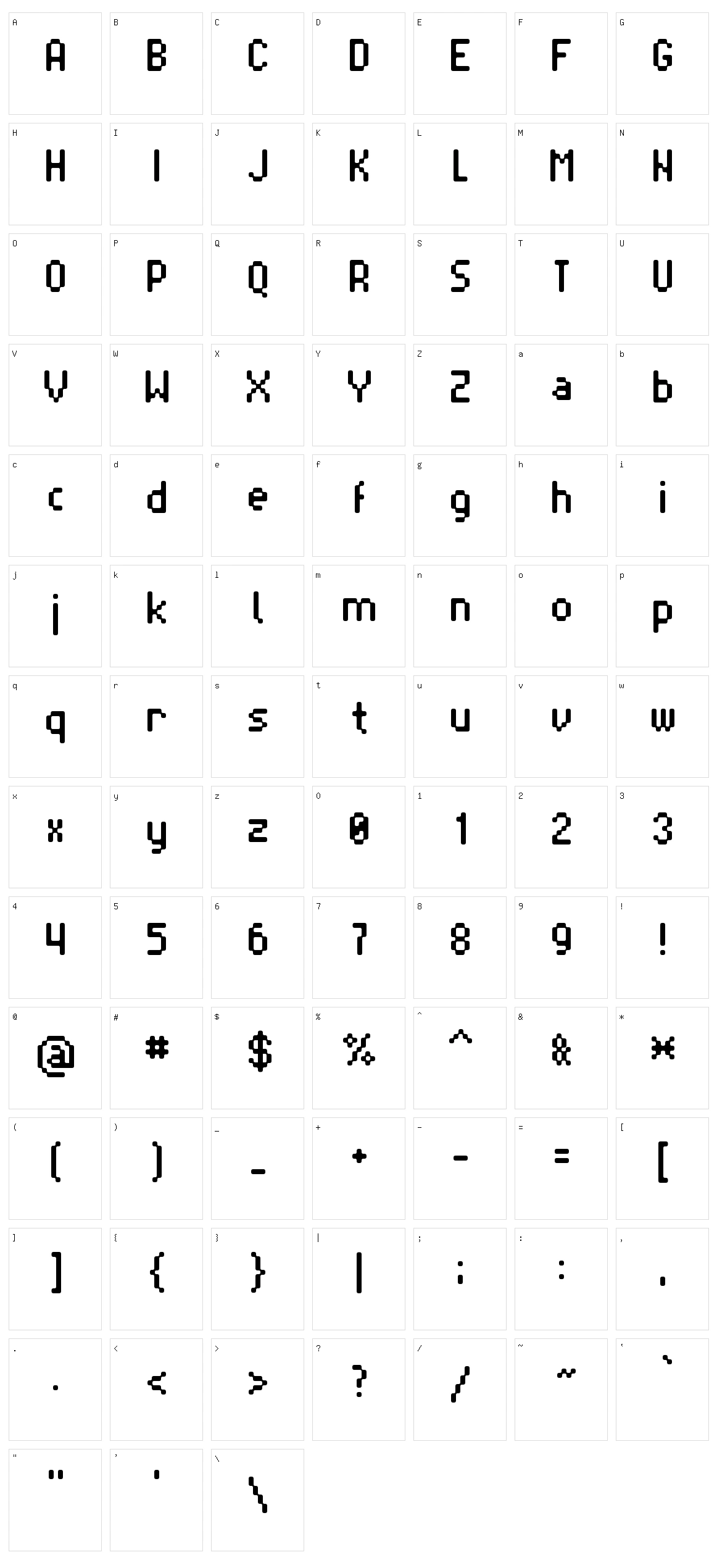
Blrrpix Strict
Blrrpix (Blurred Pixels) Strict
(Strict means that every "pixel" snaps to global grid)
by Vít Èondák
2005-2014
History
0.16 2014-09-02
* modified: r
+ Greek
+ OoUu-tilde
+ GgHhJjSsWwYy-circumflex
+ IiOoUu-macron
0.15 2014-02-09
* modified: t
+ kerning: st
0.14 2014-01-15
* moved position: +-*=
* modified: rtlvx
+ Tweak: kerning T+
0.13 2014-01-14
+ strict x tweak
* Tweak: ltvx
0.12 2014-01-13
* complete basic set
0.10 2014-01-12
+ small caps
0.00 2005-09-02
+ 5fold